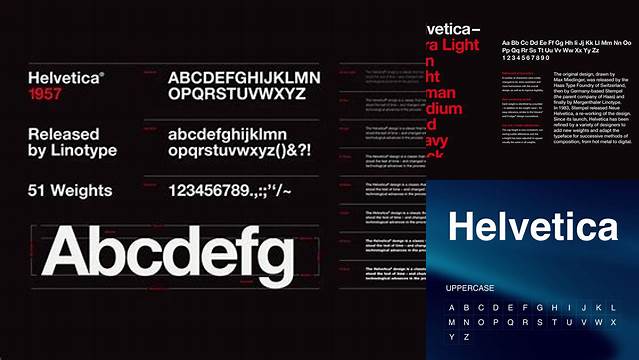
Helvetica Font: A Deep Dive into the Classic
Let's kick things off by talking about Helvetica itself. Helvetica free font family download can seem daunting, but it’s a journey worth undertaking. Helvetica, created in 1957 by Swiss designers Max Miedinger and Eduard Hoffmann, is renowned for its clean lines, excellent legibility, and neutrality. It's a sans-serif typeface, meaning it lacks the small strokes (serifs) found at the ends of some letterforms. This simplicity makes it incredibly versatile, suitable for everything from body text to headlines. Its popularity soared throughout the 20th century, becoming a favorite of designers and corporations worldwide. Its universal appeal stems from its ability to convey a sense of clarity and modernity. Think of it as the Swiss watch of fonts – precise, reliable, and undeniably stylish. Helvetica’s impact on graphic design and typography is undeniable. It has been used by countless brands, including American Airlines, BMW, and Microsoft, to name just a few. Its widespread use has made it a cultural icon, instantly recognizable and associated with quality and professionalism. Getting access to the Helvetica free font family download means having a slice of design history at your fingertips, ready to elevate your own projects. The beauty of Helvetica lies in its simplicity; it doesn't draw attention to itself but instead serves the message effectively. Whether it's on a billboard or a website, Helvetica delivers its content with an understated elegance. It has proven its staying power, remaining as popular today as it was decades ago. Because of its classic design, it is perfect for a wide variety of design projects.
Why Helvetica Remains a Design Staple
So, what makes Helvetica so enduring? It's not just its aesthetic appeal but also its incredible versatility. Its neutral appearance allows it to be used in various applications without overshadowing the message. The font's legibility is another key factor in its lasting popularity. It remains crisp and clear at various sizes and resolutions, making it ideal for both print and digital formats. The designers, Max Miedinger and Eduard Hoffmann, created a typeface that focused on functionality and aesthetic simplicity, which has made it a cornerstone of graphic design for over six decades. It offers a timeless quality that allows it to stay relevant across various design trends and stylistic changes. Its straightforward, no-frills approach means it doesn’t feel dated or trendy. Rather, it feels classic, providing a dependable and solid foundation for any design project. When you seek a Helvetica free font family download, you are choosing a font that has already stood the test of time and will surely be a success. From branding to editorial design, it has the capacity to deliver an impression of professionalism, precision, and elegance. It is a versatile typeface that lends itself to both formal and informal projects, a valuable quality. This means it can be easily adapted to fit different design needs, making it a reliable choice for any design undertaking. Its simplicity allows it to blend into the background, letting the content take center stage, while still contributing to a polished, professional look. It's a powerful tool for designers because of its capacity to carry a sense of both clarity and sophistication.